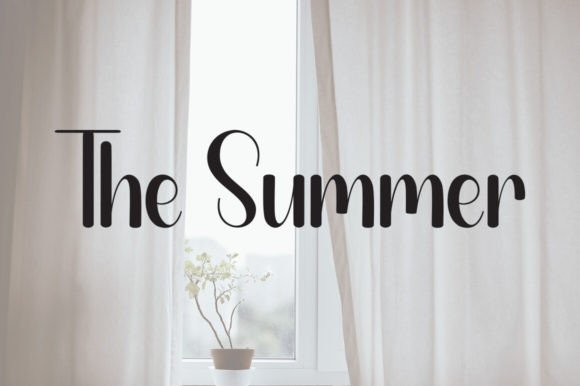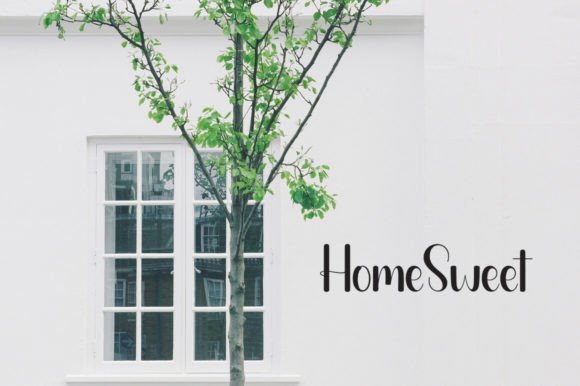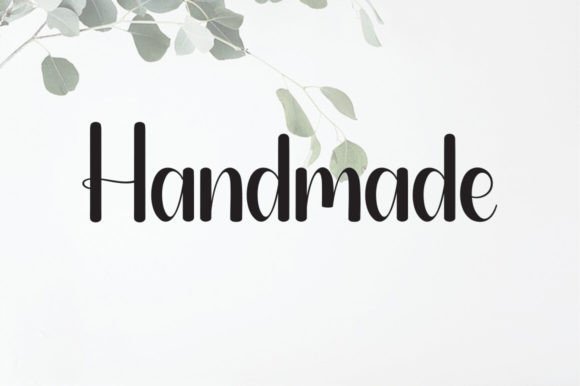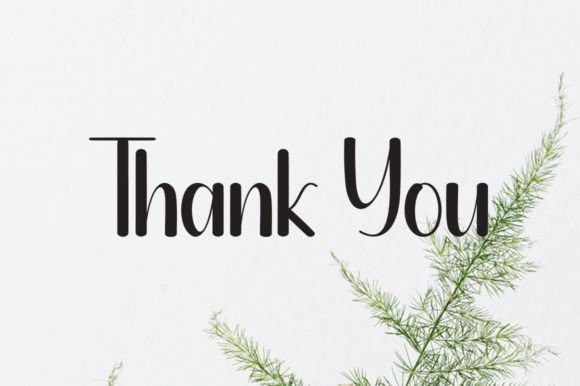
The Sweet Allure of Babyish Font
Do you remember the feeling of scribbling sweet nothings in a child’s notebook, watching as their tiny hand awkwardly grasped a crayon and brought a world of imagination to life? That’s the same sense of wonder and magic that the Babyish Font embodies. This delectably sweet handwritten font is designed to capture the essence of innocence and playfulness, making it the perfect addition to any design project.
Whether you’re creating a birthday invitation, a wedding card, or a children’s book, the Babyish Font lends a touch of tenderness and romance to every project. Its cursive style is not only aesthetically pleasing but also adds a sense of joy and whimsy that’s hard to find in other fonts. As a designer, you’ll appreciate the versatility of Babyish Font and its ability to bring a sense of warmth and personality to your designs.
Babyish Font Key Features
- Font Family: Babyish Font is a unique, handwritten font designed to resemble a child’s handwriting.
- Unique Characteristics: Features a playful, whimsical design with uneven letterforms, making it perfect for adding a touch of personality to designs.
Babyish Font Review
I’ve had the chance to dive into the “Babyish Font” and here’s my honest take on it. ✨ The font’s playful and cutesy vibe is perfect for designs targeting a younger audience or those that require a touch of whimsy. The rounded edges and soft lines make it an excellent choice for headers and titles. It’s also very readable, even at smaller font sizes.
However, there are a few limitations to consider ⚠️. The font’s design can feel a bit too childish for more mature audiences. It may not be the best fit for professional or corporate designs. Additionally, the font’s weight and style options are somewhat limited, which might restrict its use in complex or multi-page documents.
In terms of overall impression, the “Babyish Font” is a solid choice for the right projects. It’s well-suited for children’s books, nursery decorations, and other designs that require a playful touch. Just be mindful of its limitations and target audience.
- Best for: Children’s designs, nursery decorations, playful headers, and titles
- Not ideal for: Professional or corporate designs, complex documents
The Babyish Font is ideal for creating playful, child-friendly designs. Use it for:
- Children’s book covers and illustrations
- Infant product packaging and branding
- Fun and creative social media posts
Remember to pair the Babyish Font with other playful design elements to create a cohesive and engaging look.
Alternatives to Babyish Font for Designers
Pacifico is a beautiful, elegant script font that’s perfect for creating a sense of sophistication and refinement. It’s ideal for use in branding, packaging, and advertising where a touch of luxury is desired.
Compared to Babyish Font, Pacifico is more refined and less playful, making it a better choice for formal designs. While Babyish Font is great for creating a whimsical feel, Pacifico excels at conveying a sense of high-end quality.
Great Vibes is a modern, handwritten font that’s perfect for creating a sense of fun and playfulness. It’s ideal for use in social media graphics, posters, and other designs where a lighthearted tone is desired.
Compared to Babyish Font, Great Vibes is more casual and less cursive, making it a better choice for designs that need to convey a sense of relaxation and leisure. While Babyish Font is great for creating a sense of wonder, Great Vibes excels at creating a sense of carefree fun.